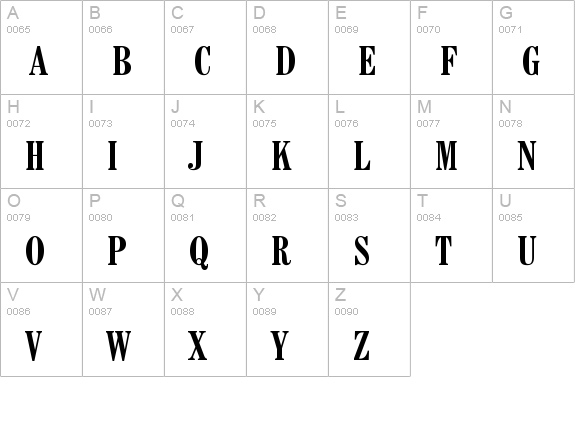
Century Schoolbook Bold Condensed Font Details
Century Schoolbook Bold Condensed is a strong, high-contrast, condensed-width variant in the Century typeface family \xE2\x80\x94 well suited to headlines, attention-grabbing titles, and strong calls-to-action.